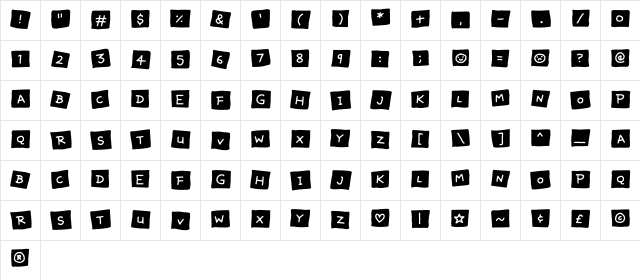
Lovely Notes Regular
Design Context for Lovely Notes Typeface
Lovely Notes is a composed and adaptable typeface that performs quietly and consistently across a wide range of design contexts.